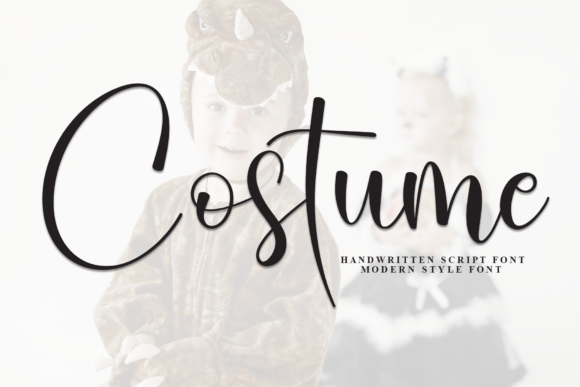
Introducing Costume Font: Elevate Your Designs with Fresh Elegance
In the world of typography, few fonts manage to capture the essence of elegance and charm as effortlessly as Costume Font. This stylish handwritten script font is designed to bring a sense of renewal and sophistication to various design projects, making it an ideal choice for creative professionals and businesses alike. With its flowing strokes and graceful curves, Costume Font is poised to become a favorite among designers seeking to add a touch of refinement and personality to their work.
The Essence of Costume Font
Costume Font is more than just a typeface; it’s an expression of style and creativity. Its delicate charm and fresh elegance make it perfect for a wide range of applications, from invitations and branding to seasonal designs and more. The font’s design is characterized by its soft, flowing strokes that dance across the page, creating a sense of movement and fluidity. This, combined with its graceful curves, gives Costume Font a unique and sophisticated look that is sure to captivate audiences.
Key Features of Costume Font
- Handwritten Script Style: Costume Font boasts a beautiful, handwritten script style that adds a personal touch to any project.
- Flowing Strokes: The font’s flowing strokes create a sense of elegance and fluidity, making it perfect for designs that require a touch of sophistication.
- Graceful Curves: Costume Font’s graceful curves add a level of refinement and poise to any design, elevating it from ordinary to extraordinary.
- Delicate Charm: The font’s delicate charm makes it an excellent choice for projects that require a touch of whimsy and playfulness.
- Fresh Elegance: Costume Font’s fresh elegance ensures that it remains relevant and stylish, even in the most contemporary designs.
Perfect for a Variety of Design Projects
Costume Font’s versatility makes it an excellent choice for a wide range of design projects. Here are some of the ways you can use this beautiful font:
Design Applications
- Invitations: Whether you’re designing wedding invitations, birthday party invites, or any other type of celebration, Costume Font adds a touch of elegance and sophistication.
- Branding: Use Costume Font to create a unique and memorable brand identity that stands out from the competition.
- Seasonal Designs: From Christmas cards to summer sale posters, Costume Font’s fresh elegance makes it perfect for seasonal designs.
- Packaging: Add a personal touch to your product packaging with Costume Font, making your brand more relatable and appealing to customers.
- Digital Content: Use Costume Font in your digital content, such as blog posts, social media graphics, and email newsletters, to add a touch of personality and style.
Why Choose Costume Font?
With so many fonts available, why should you choose Costume Font for your design projects? Here are some compelling reasons:
Reasons to Choose Costume Font
- Unique Style: Costume Font offers a unique and distinctive style that sets it apart from more traditional fonts.
- Elegance and Charm: The font’s elegance and charm make it perfect for designers looking to add a touch of sophistication to their work.
- Versatility: Costume Font’s versatility ensures that it can be used in a wide range of design projects, from invitations to branding and more.
- Easy to Read: Despite its elegant and flowing strokes, Costume Font remains easy to read, making it practical for both digital and print designs.
- High-Quality Design: Costume Font is designed to the highest standards, ensuring that it looks great in any design project.
Tips for Using Costume Font Effectively
To get the most out of Costume Font, here are some tips for using it effectively in your design projects:
Tips for Using Costume Font
- Pair with Complementary Fonts: Costume Font pairs well with clean, sans-serif fonts. Try pairing it with fonts like Arial, Helvetica, or Open Sans to create a balanced look.
- Use for Headings and Titles: Costume Font is perfect for headings and titles, where its elegance and charm can be showcased.
- Experiment with Colors: Don’t be afraid to experiment with different colors to find the perfect match for your design. Costume Font looks great in both bright and muted colors.
- Pay Attention to Spacing: Make sure to pay attention to the spacing between letters and lines to ensure that your text is easy to read and visually appealing.
- Use for Digital and Print Designs: Costume Font is versatile enough to be used in both digital and print designs. Experiment with different formats to see what works best for your project.
Costume Font is a stylish handwritten script font that radiates fresh elegance and delicate charm. Its flowing strokes and graceful curves evoke a sense of renewal, making it perfect for a wide range of design projects. Whether you’re designing invitations, branding materials, or seasonal designs, Costume Font adds a soft, personal touch and uplifting feel that is sure to captivate audiences. With its versatility, elegance, and charm, Costume Font is an excellent choice for creative professionals and businesses looking to elevate their designs.